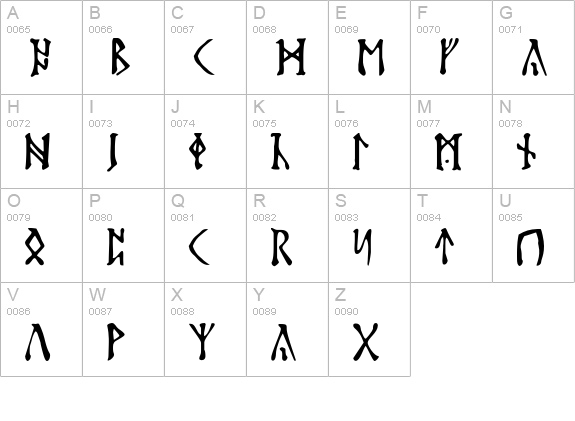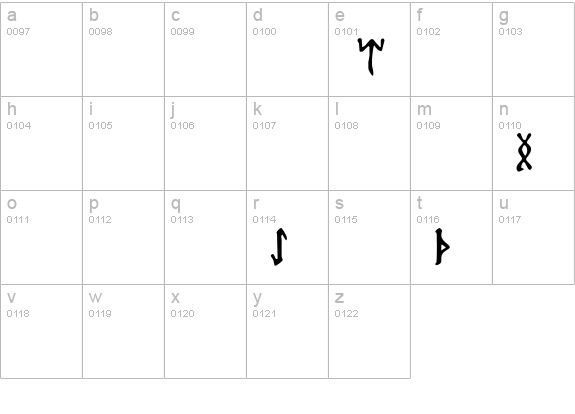
Futhark Font Details
Futhark is a beautifully crafted font that combines traditional elegance with a modern twist. Its intricate and sophisticated design makes it perfect for adding a touch of sophistication to any project. Inspired by ancient runic alphabets, Futhark exudes a timeless charm that will captivate any audience. What sets Futhark apart is not only its stunning aesthetics but also its versatility. Whether you're designing a logo, creating a poster, or crafting a website, this font will bring a unique flair to your work. With its sleek lines and balanced proportions, Futhark is a true standout in the world of typography. The best part? Futhark is available for free download at FontsMarket.com. This means that you can easily access this exceptional font and elevate your designs without breaking the bank. Don't miss out on the opportunity to enhance your creative projects with the timeless beauty of Futhark. Download it today and let your creativity soar.